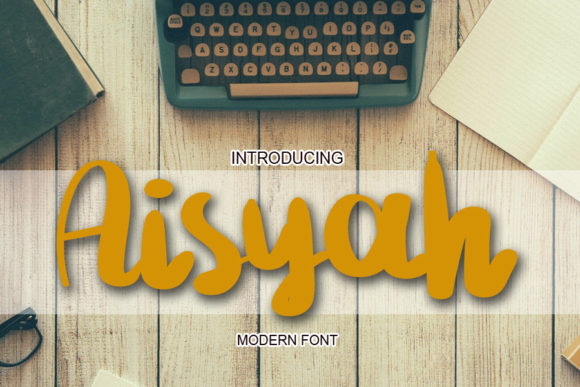
The Aisyah Font: A Beautifully Crafted Handwritten Font for Creative Projects
I’ll never forget the time I was working on a wedding invitation design project, and my client asked for a font that was both elegant and playful. I scoured the internet for hours, but nothing seemed to fit the bill. That was until I stumbled upon the Aisyah font. With its flowing, thick lettered, and neat handwritten style, it was love at first sight! 💕
In this article, we’ll dive into the world of Aisyah font, exploring its features, uses, and benefits. Whether you’re a designer, crafter, or creative hobbyist, you’ll learn how to make the most of this beautiful font and take your projects to the next level.
An Honest Review of Aisyah Font
What I Love About Aisyah Font
- ✨ Unique and eye-catching design: Aisyah font stands out from the crowd with its distinctive flowing and thick lettered style.
- ✅ Highly versatile: This font can be used for a wide range of projects, from logos and wedding invitations to headings, t-shirts, and more.
- 💯 Neat and easy to read: Despite its ornate design, Aisyah font remains clear and legible, making it perfect for both digital and print projects.
While Aisyah font is an excellent choice for many projects, there are a few things to keep in mind:
- 🤔 Limited suitability for body text: Due to its ornate design, Aisyah font may not be the best choice for lengthy paragraphs or body text.
- ⚠️ Requires careful pairing with other fonts: Aisyah font can be quite bold, so it’s essential to choose complementary fonts that won’t overpower it.
The Backstory of Aisyah Font
Aisyah font was designed with the intention of creating a beautiful, elegant script font that would inspire creativity and add a touch of sophistication to any project. The designer aimed to craft a font that was both unique and versatile, making it perfect for a wide range of applications.
Q: What type of projects is Aisyah font best suited for?
A: Aisyah font is perfect for projects that require a touch of elegance and sophistication, such as wedding invitations, logos, headings, and more.
Q: Is Aisyah font available in different styles or weights?
A: Aisyah font may come in different styles or weights, depending on the version you have. Be sure to check the font files or documentation for more information.
Q: Can I use Aisyah font for digital projects, such as website design or social media graphics?
A: Absolutely! Aisyah font is perfect for digital projects, including website design, social media graphics, and more. Its clear and legible design makes it easy to read on various devices.